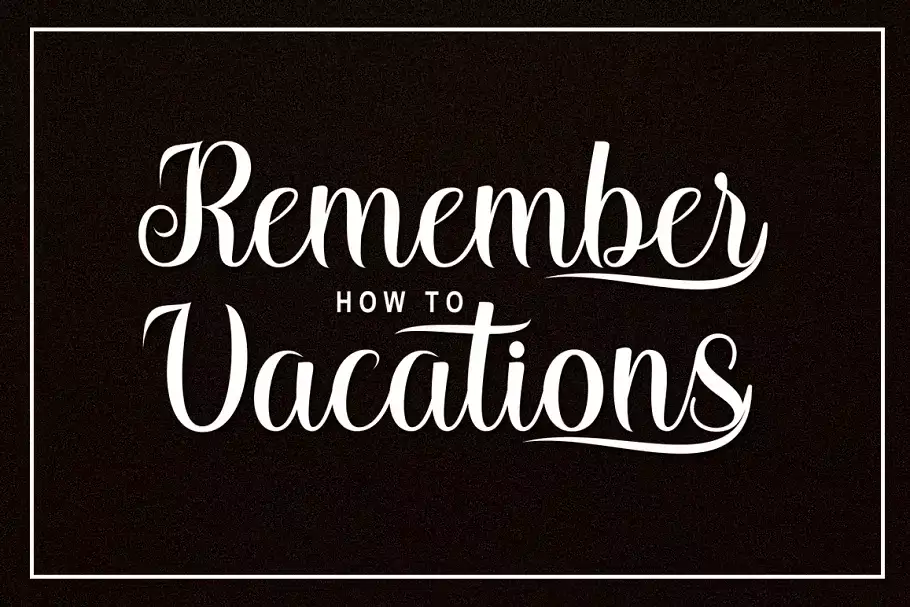
Stayland Calligraphy Font
Stayland is a modern calligraphy and script typeface. Lowercase, uppercase, alternative, ligature, punctuation, and numbers are all included in the font. The font also supports many languages. It works in tandem with Stayland to produce stunning calligraphy. The font is designed and published by Letter Fresh Studio. The font was uploaded on March 31, 2020. The font looks lovely on any black background. It has an aesthetic aura that helps each project stand out.
For any type of brand, the typeface will look amazing in any wallpaper with a dark background. Because of its bold texture, the typeface might also be used for packaging. It can also be used for logos, wedding invites, titles, signatures, t-shirts, letterheads, signboards, labels, and posters, among other things.
| Name | Stayland Calligraphy Font |
| Style | Script, Calligraphy |
| Designer | Letter Fresh Studio |